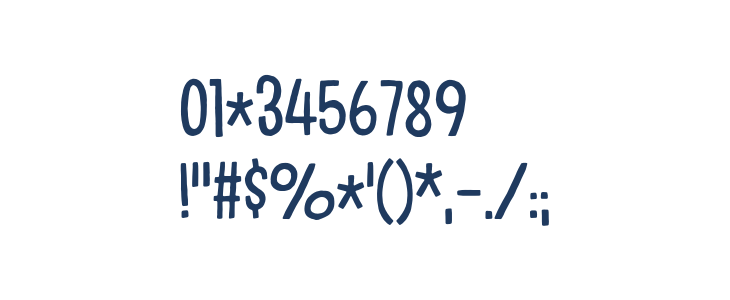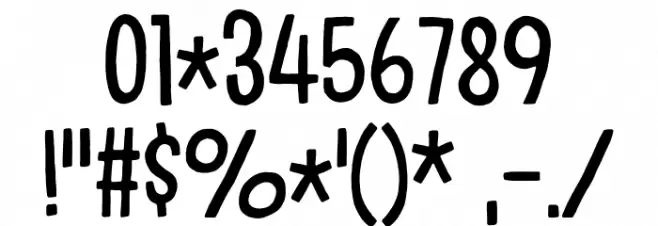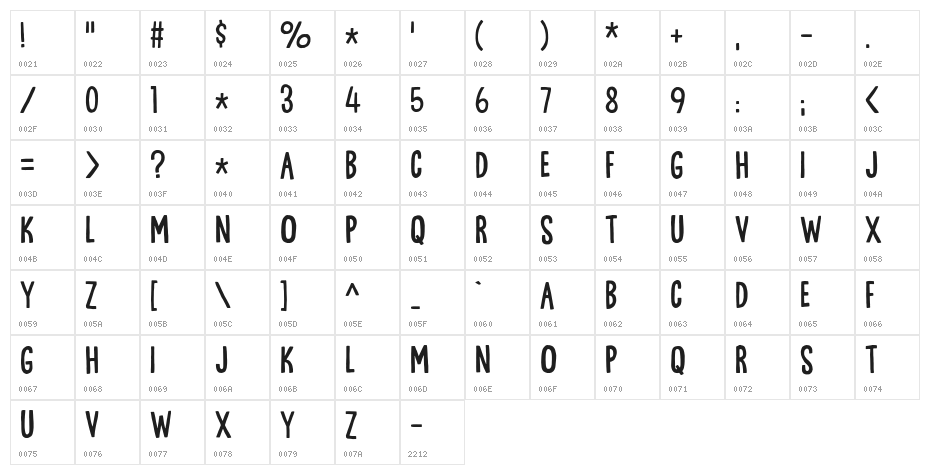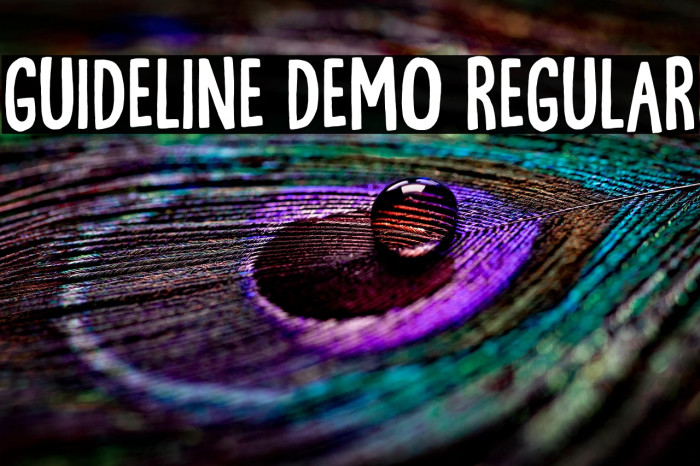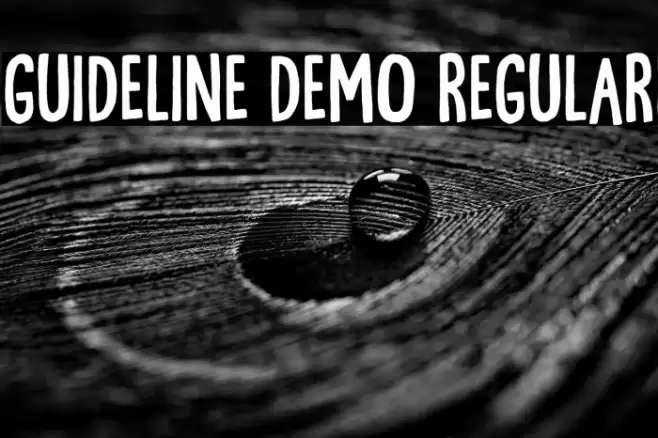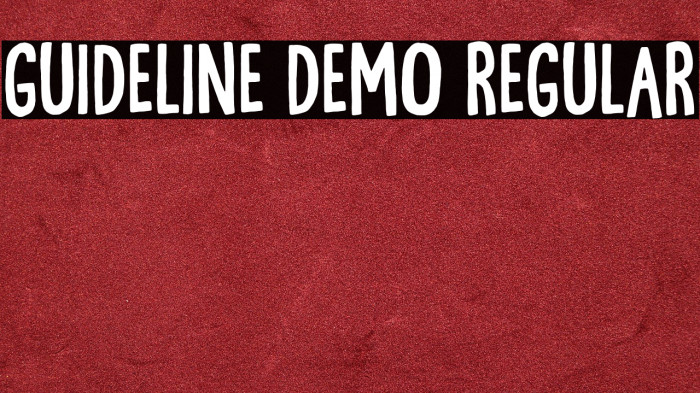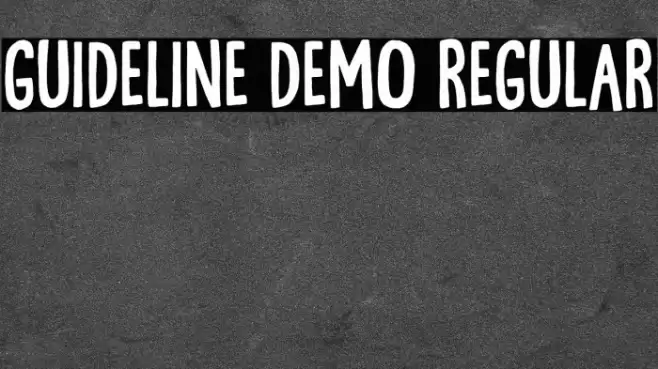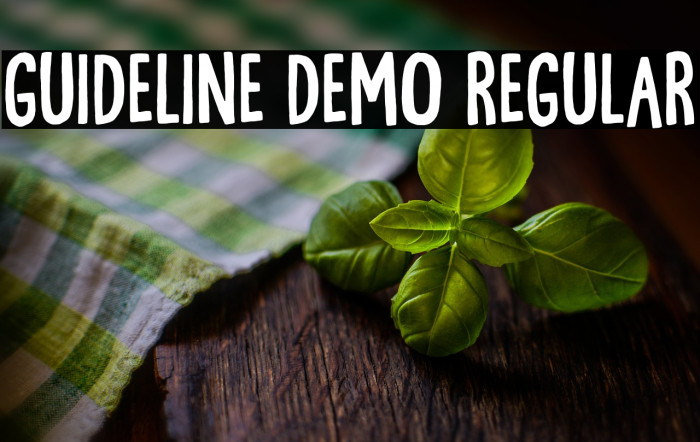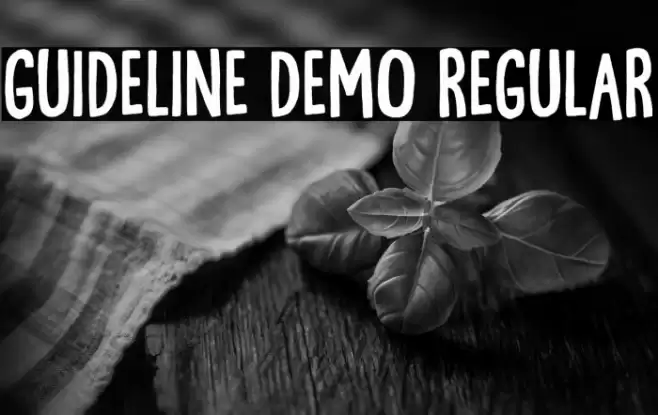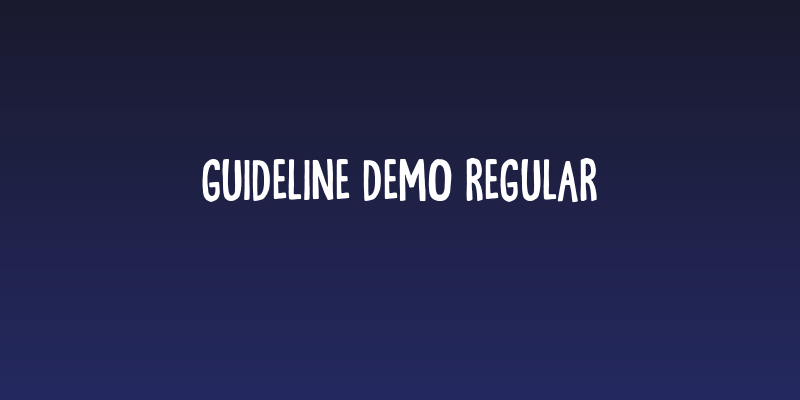
Guideline DEMO Regular Font
Guideline DEMO Regular Description
This font features a bold and playful design with a hand-drawn aesthetic. The characters are slightly irregular, giving it a casual and approachable feel. The uppercase letters are tall and narrow, while the lowercase letters maintain a consistent height, adding to the font's unique charm. The numbers and special characters are designed to match the playful style, making it suitable for creative and informal projects. The overall appearance is dynamic and energetic, perfect for capturing attention.
| Proposed Projects | Ideal for children's books, posters, greeting cards, and playful branding. |